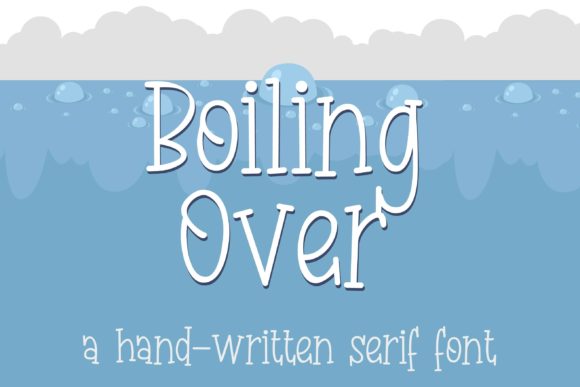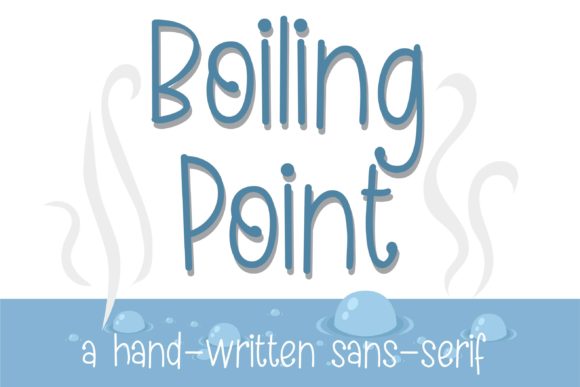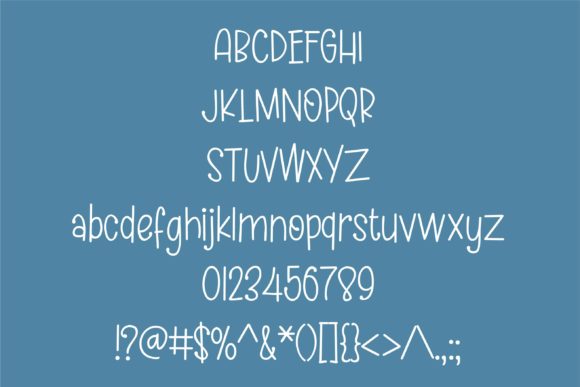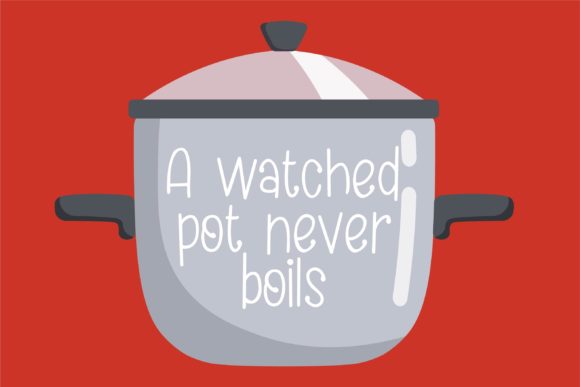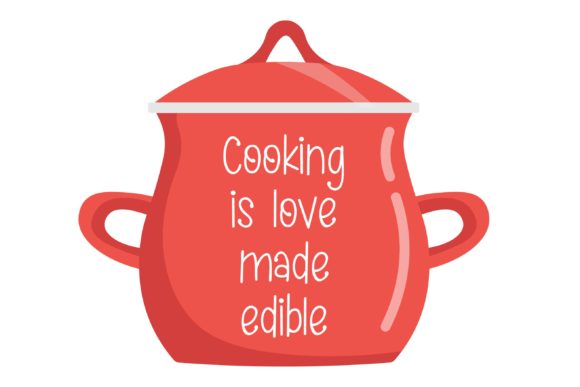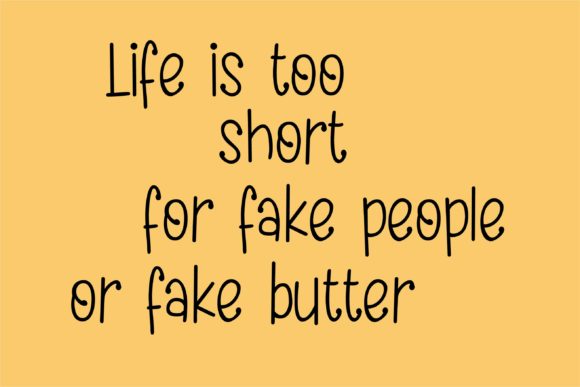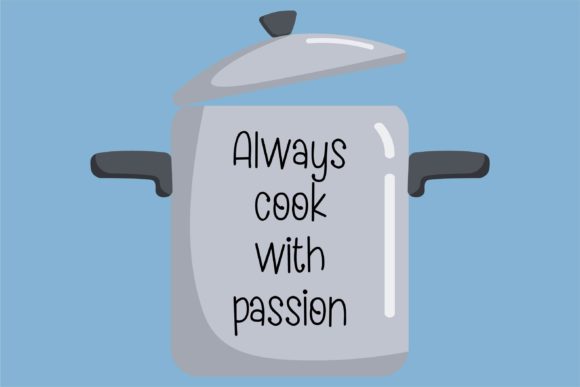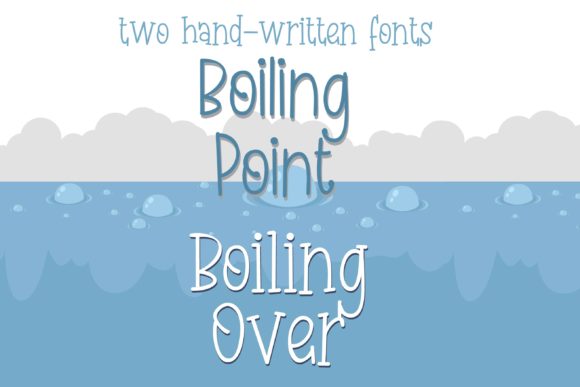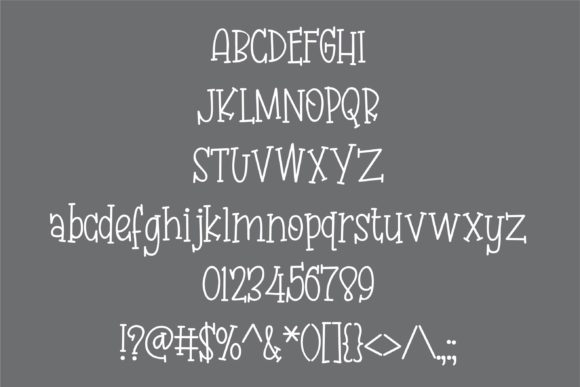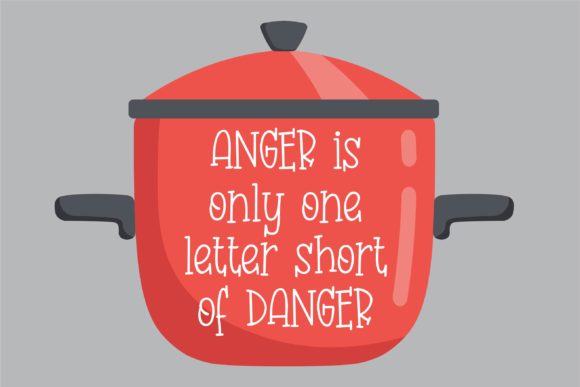
Boiling Duo Font
Boiling Duo combines two playful and unique scripts that will turn any design project into a true standout. Fall in love with their quirky, magical feel!